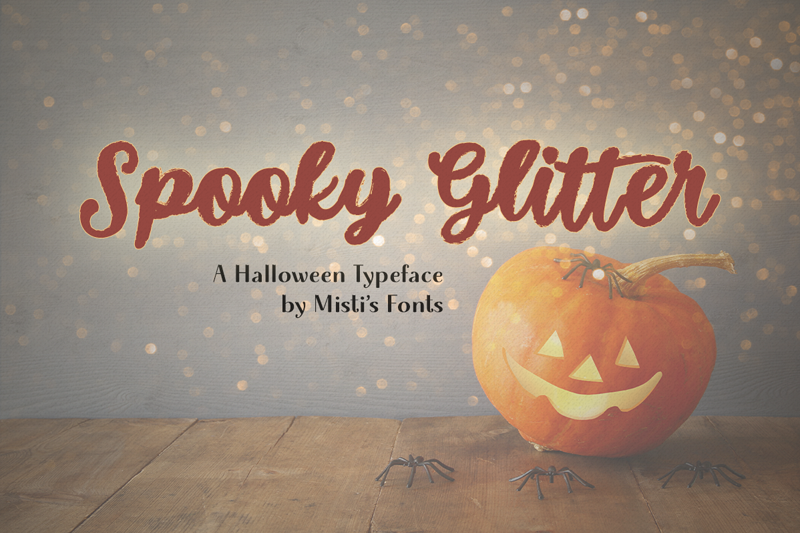
Preview and download Spooky Glitter Font. Created by Misti's Fonts in Script Brush styles with Free for personal use license.
Spooky Glitter is a cool, flowing and brushed handwritten font. Suitable to a wide variety of designs due to its neat and simple style, this font has the potential to become your favorite go-to font, no matter the occasion! Terms Of Use: https://mistifonts.com/spooky-glitter/ |